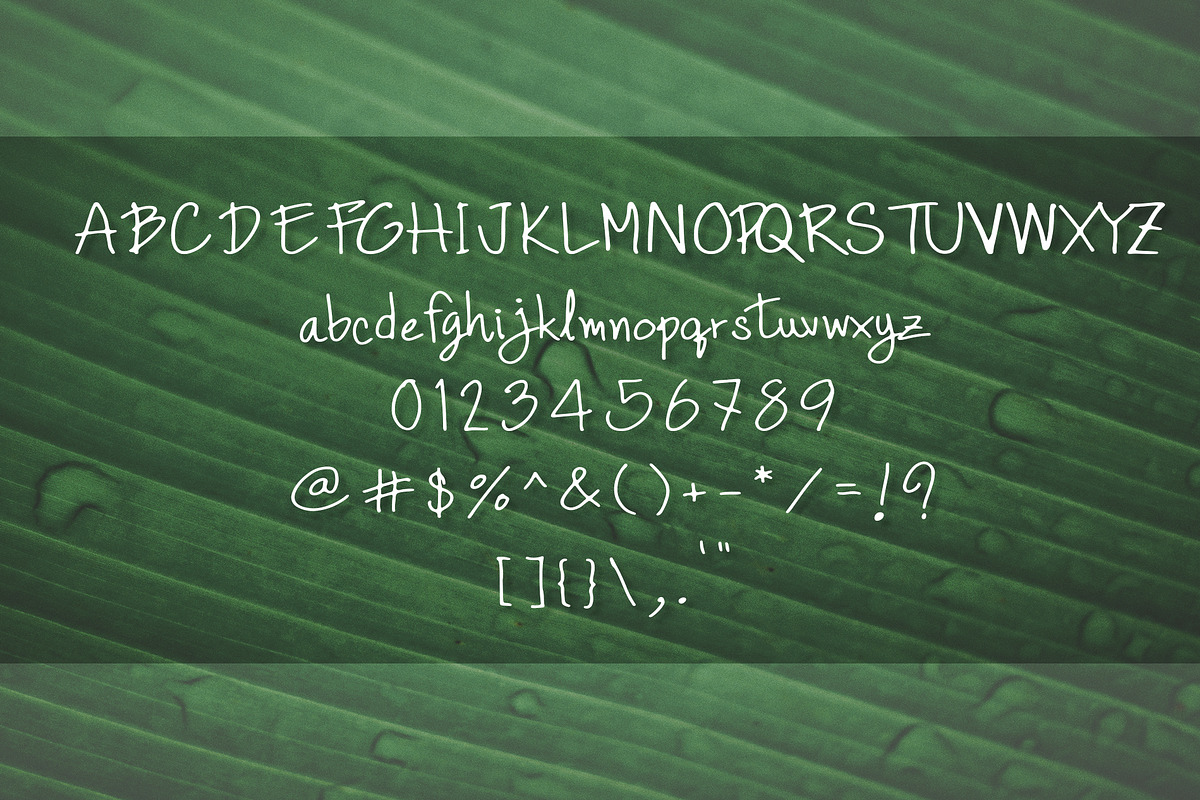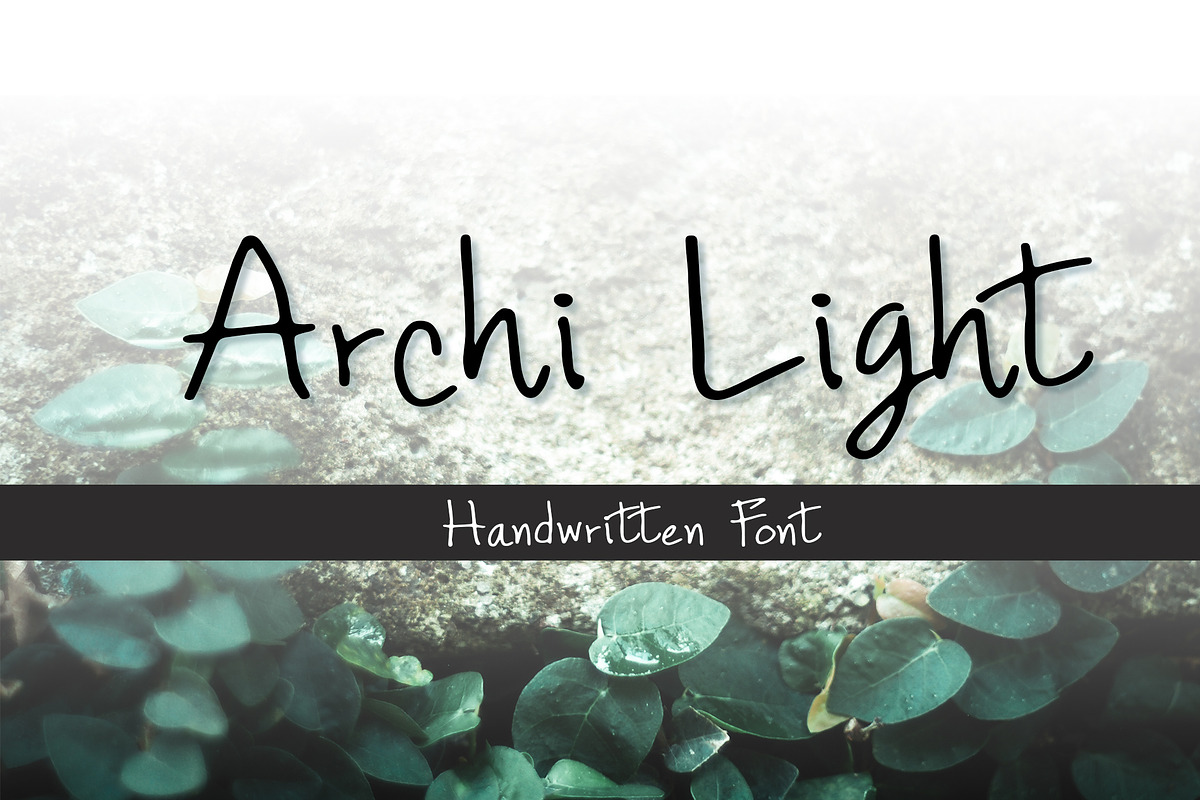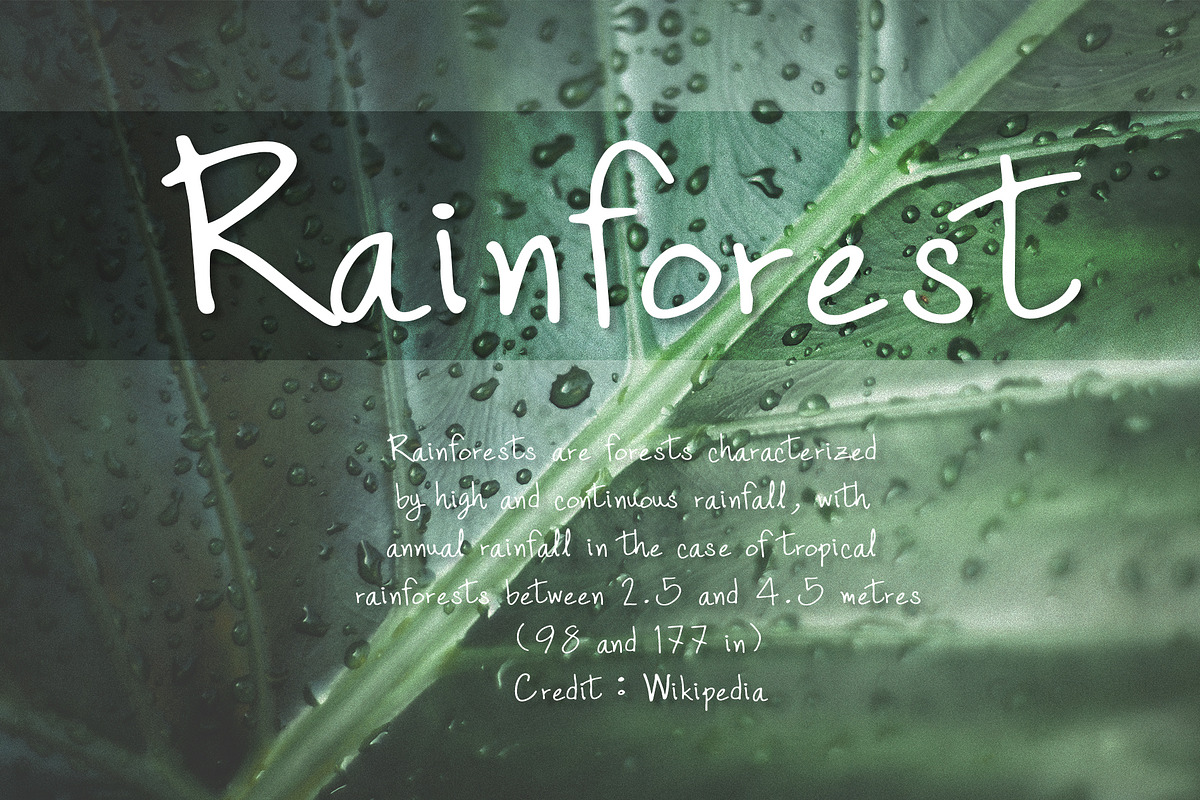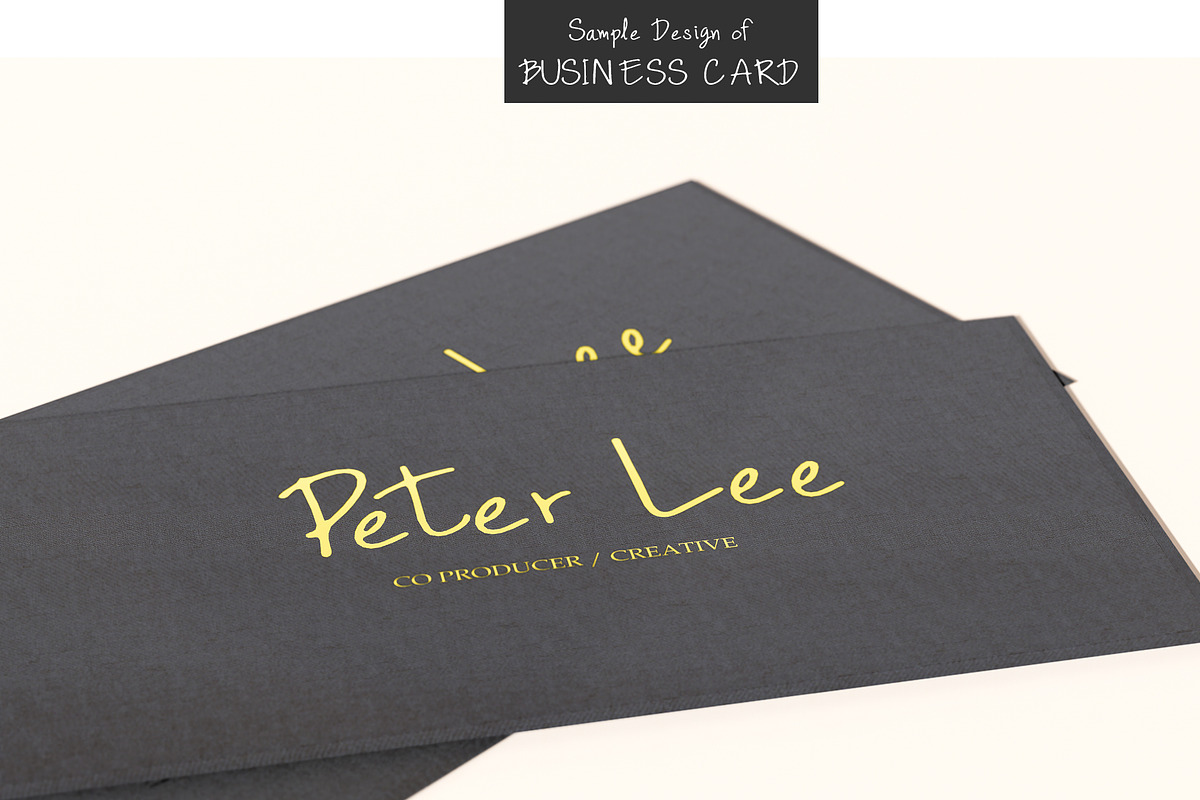
Archi Light Font
Archi Light is a handwriting font. With the thinness of the lines, the characters appear to be sparse. You may have seen characters like this in drafts. Sketch designs of all designers. You can use it to write lectures and articles. Feels like handwriting Try it out, it may help you feel like a designer.
- With the thinness of the lines, the characters appear to be sparse.
- You may have seen characters like this in drafts.
Why Archi Light Font is worth a look
Archi Light Font by skyclick fits naturally into Branding, posters, packaging, typography.